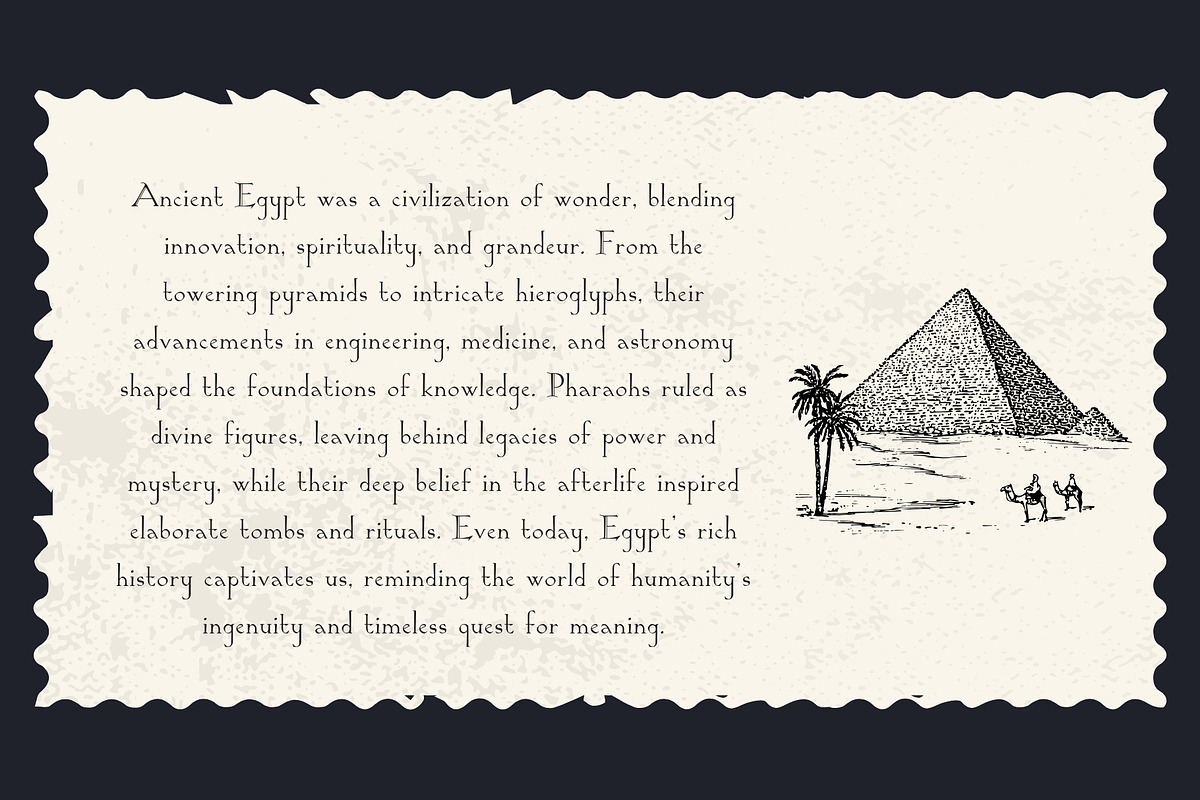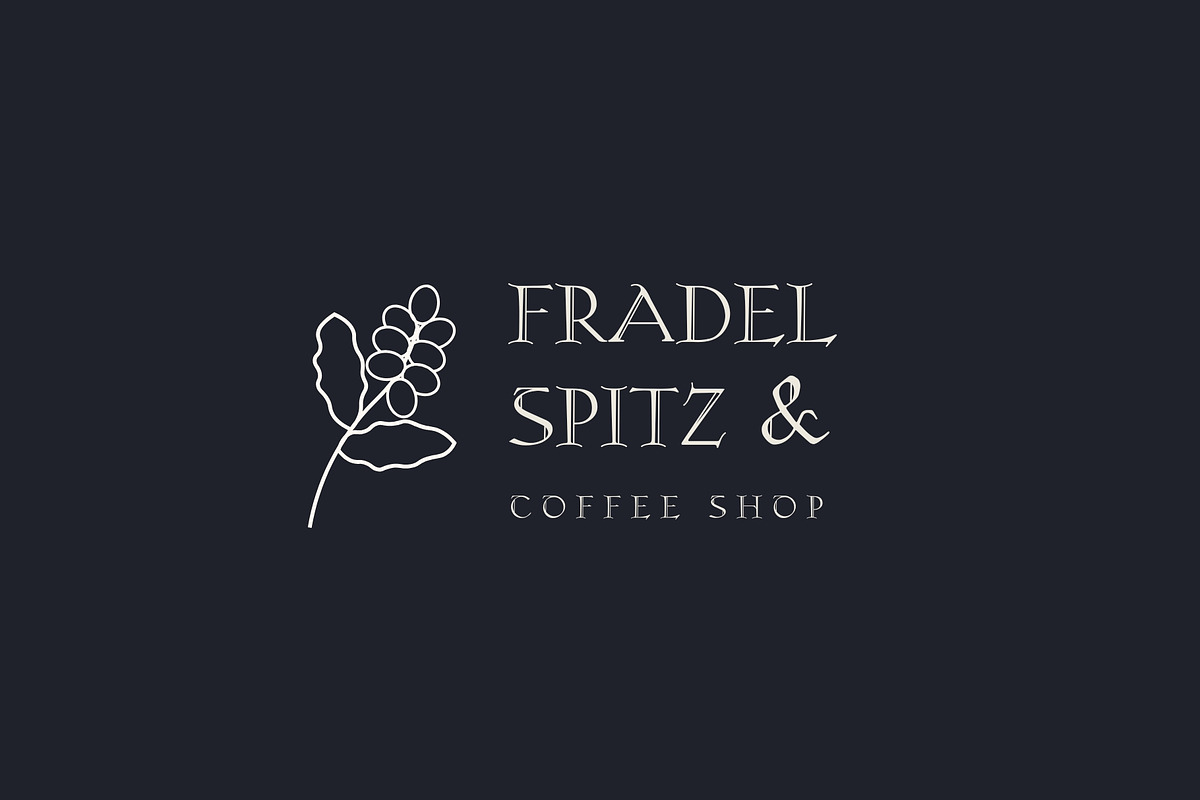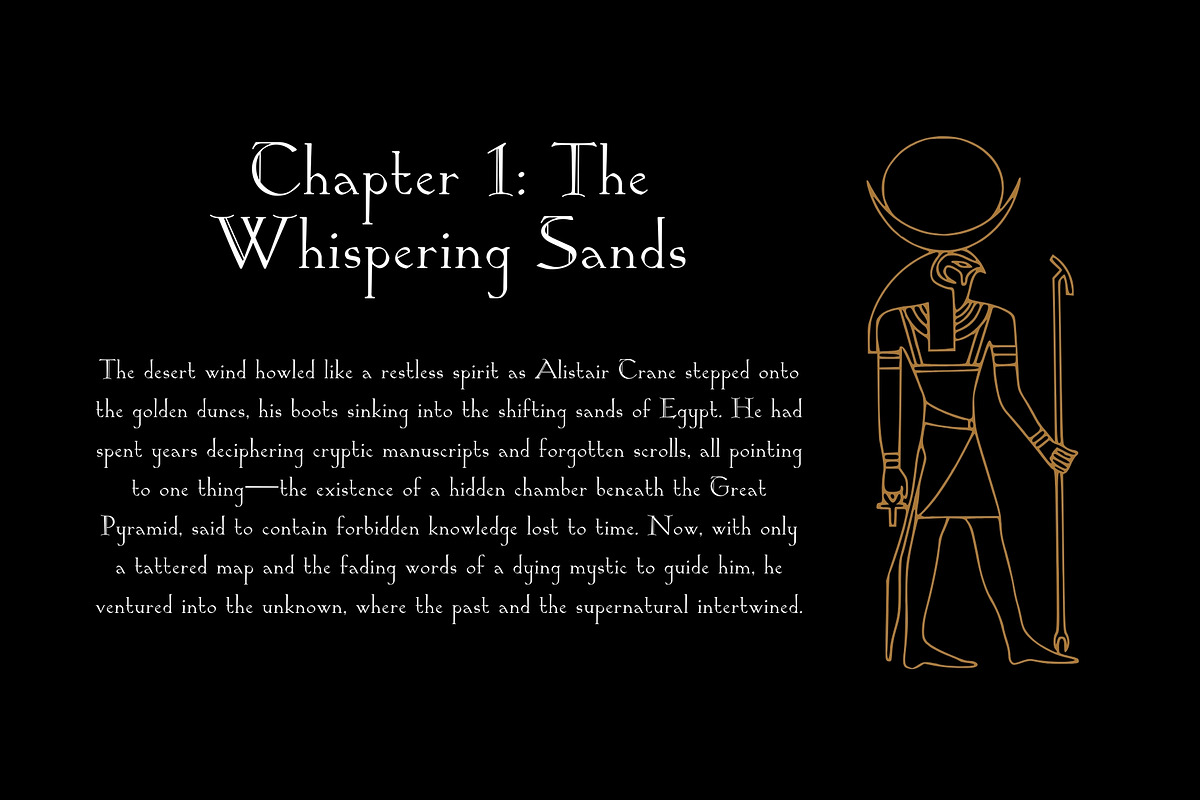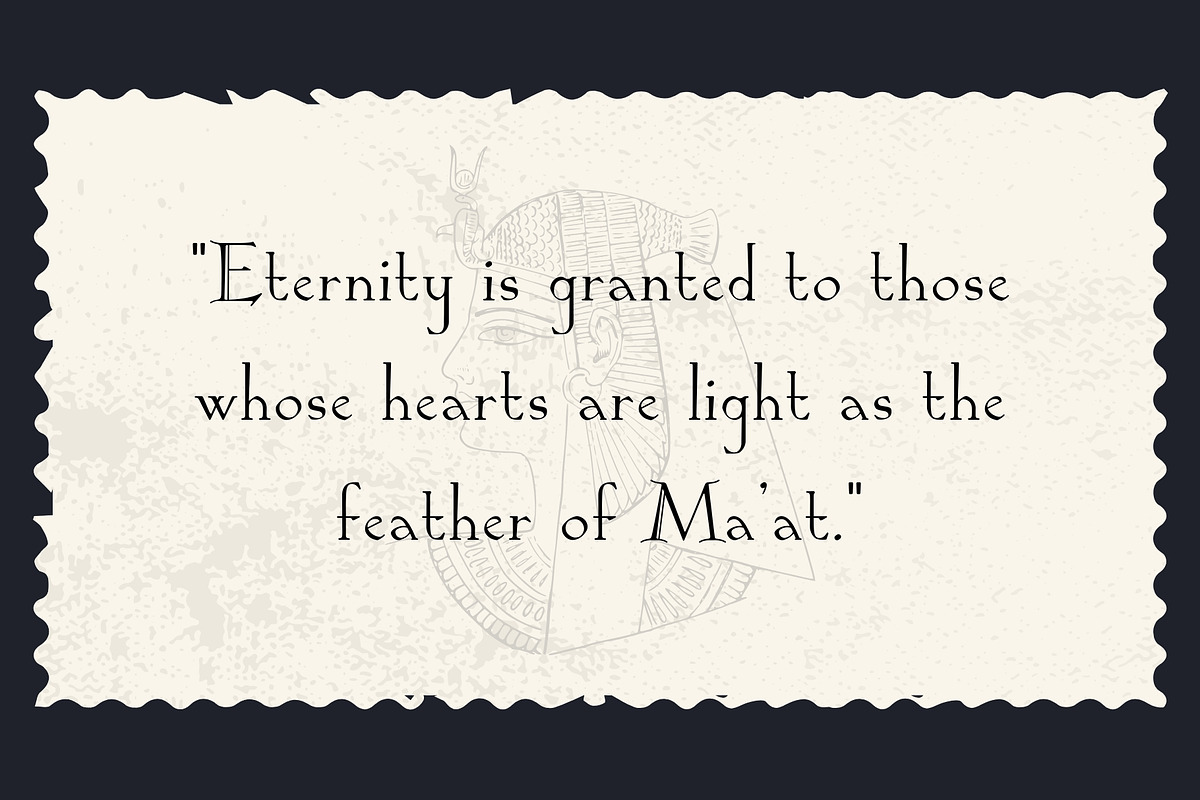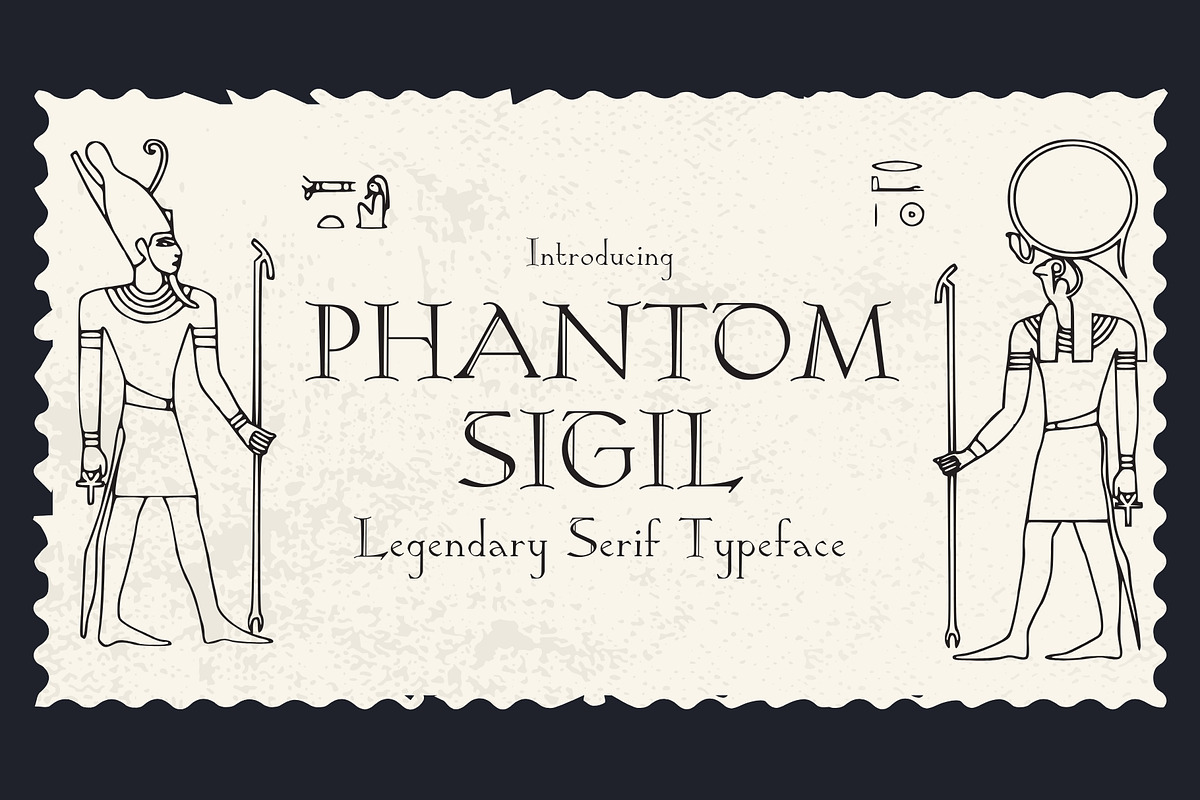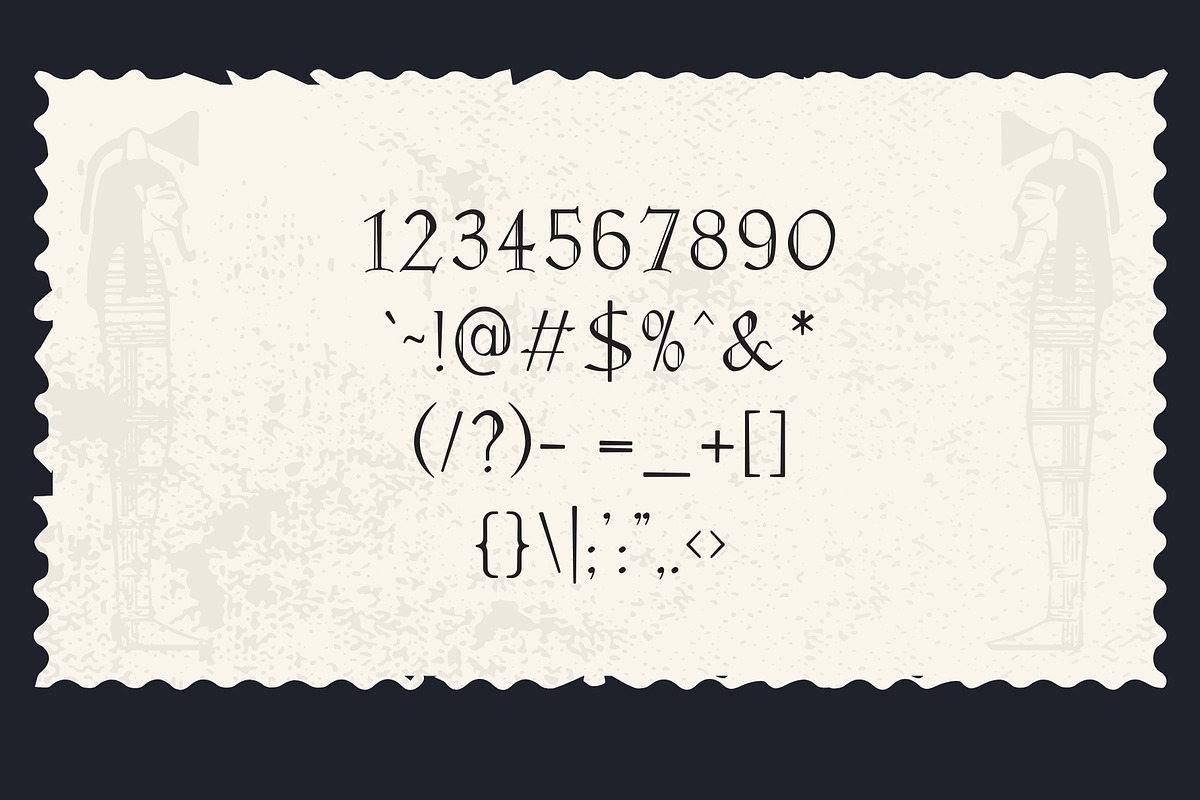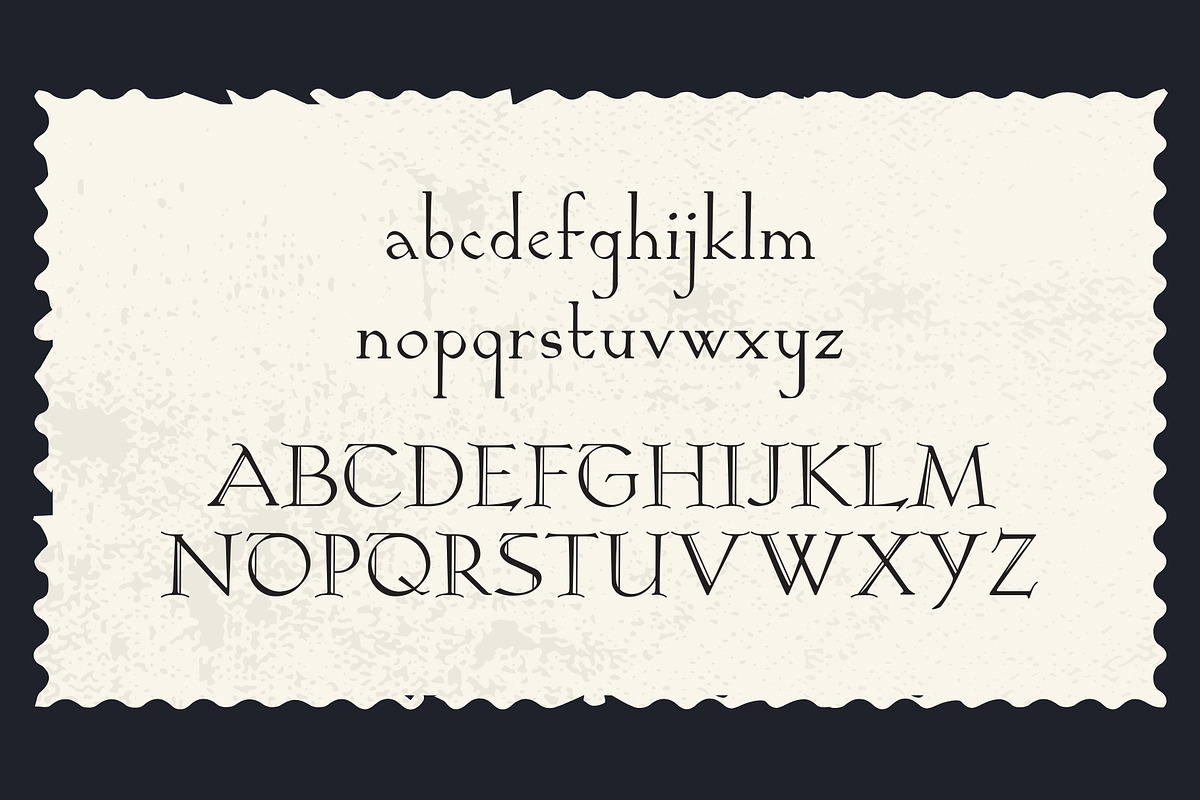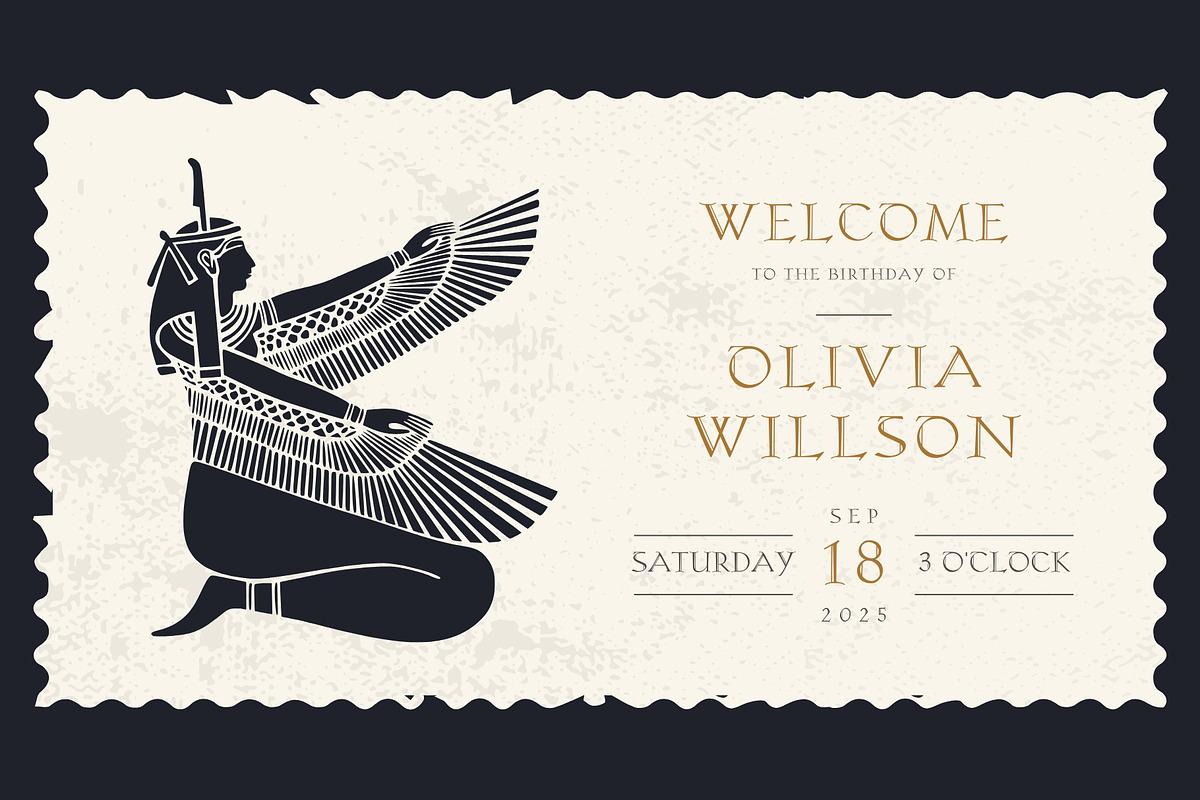
Phantom Sigil - Ancinet Serif
Step into the realm of forgotten civilizations with Phantom Sigil, a typeface forged in the echoes of history and legend. Inspired by the timeless elegance of ancient Egyptian inscriptions and the intricate artistry of lost empires, this serif font embodies the mystique of sacred texts and arcane symbols. Its letterforms are adorned with subtle, timeworn imperfections. Each stroke reminiscent of inscriptions chiseled into temple walls or ink flowing from the quills of ancient scribes.
Designed for storytellers, scholars, and visionaries, Phantom Sigil supports an impressive 65 languages, ensuring its voice can resonate across cultures and histories. With a balance of sharp serifs and flowing curves, it bridges the gap between reality and myth, whispering secrets of forgotten gods and celestial maps. Whether etched onto a forbidden manuscript or adorning the cover of an epic tome, Phantom Sigil is more than a font, it is an artifact of a bygone era, waiting to be rediscovered.